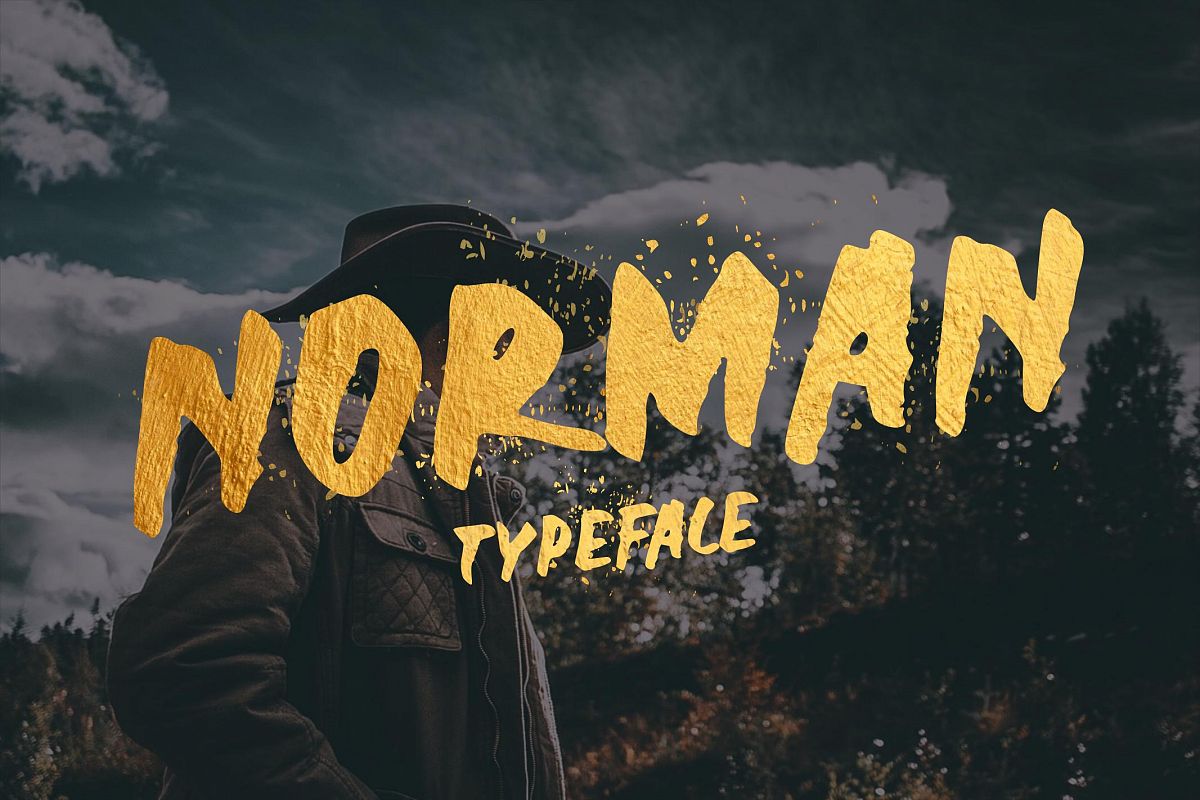
Norman Display Font
Norman
Norman Font
Norman is new handwritten font brush, elegant and vintage feel character set. To create the beautiful combination, just mix the uppercase and lowercase then mix with the alternative glyphs and playing with swash.